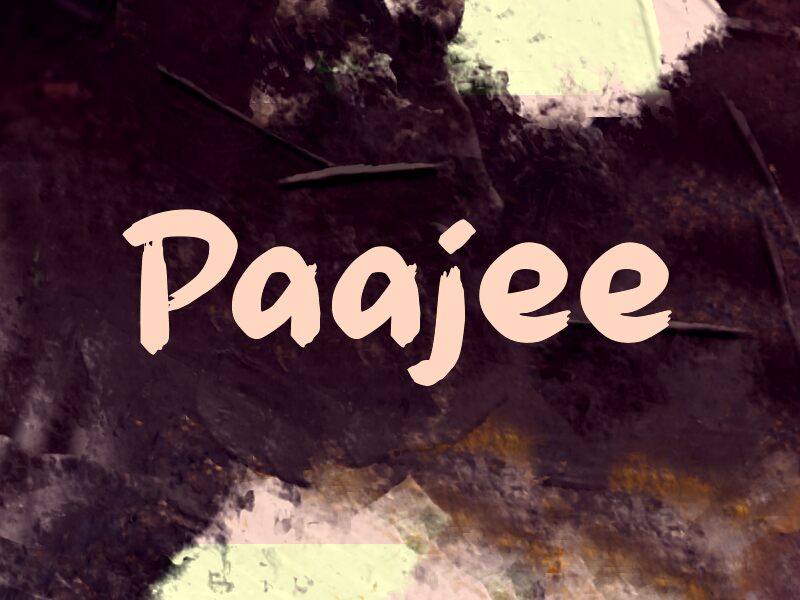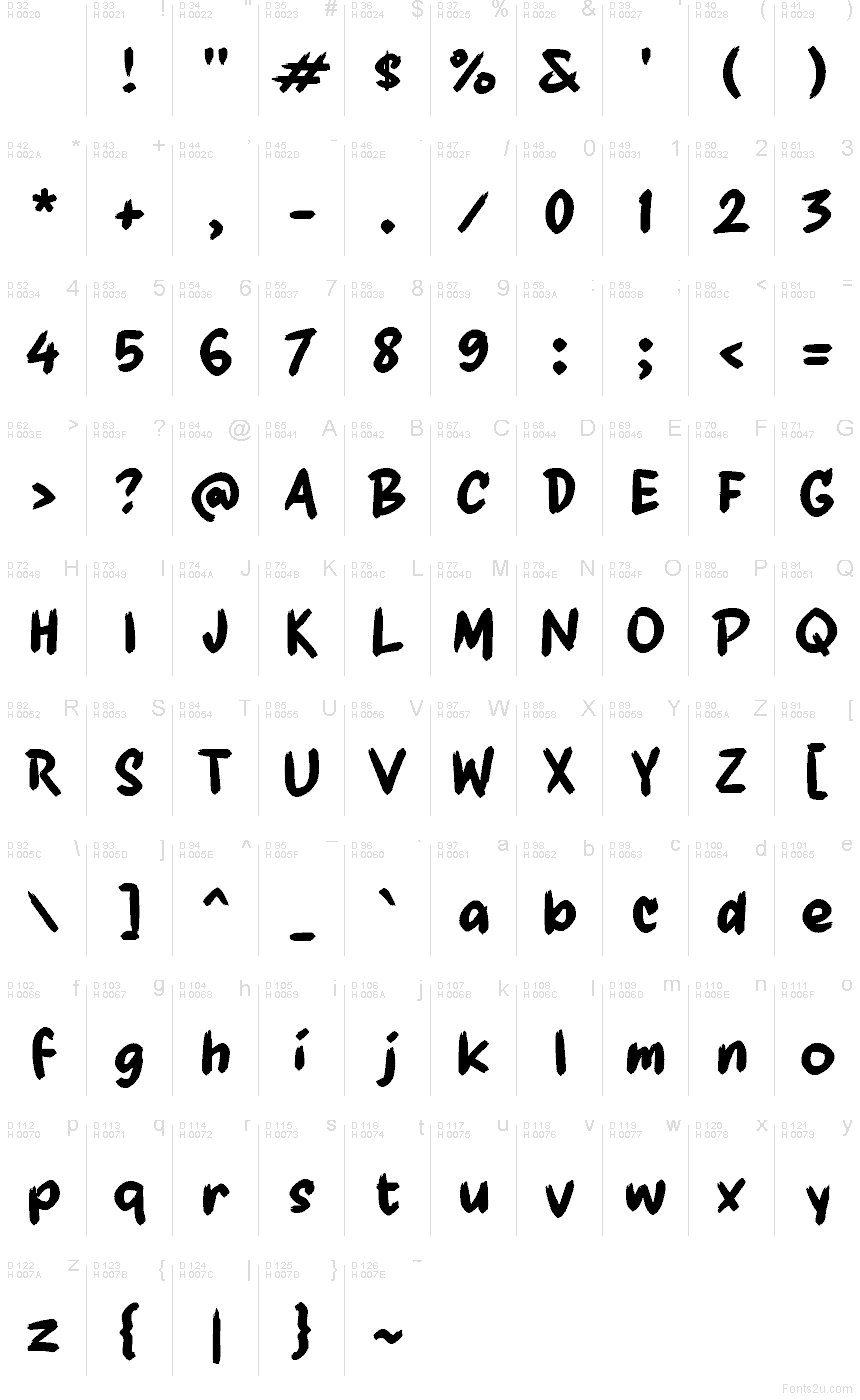
Paajee
Paajee font by wep is a free brush font that looks like it’s been painted with a loaded, slightly frayed marker. The strokes are bold and juicy, with soft curves and just enough roughness at the edges to feel handmade rather than messy. Letters sit close and confident, giving headlines a thick, inky presence that jumps off the page or screen.
Using Paajee, this free font comes alive on street-food branding, bold poster titles, lively social media graphics, kids’ event flyers, T-shirt graphics, and casual logo marks. Its chunky, energetic rhythm pulls the eye in and adds warmth wherever you need personality. For balance, pair Paajee with a clean, narrow sans serif and let Paajee handle the big, loud words while the sans carries the smaller details.